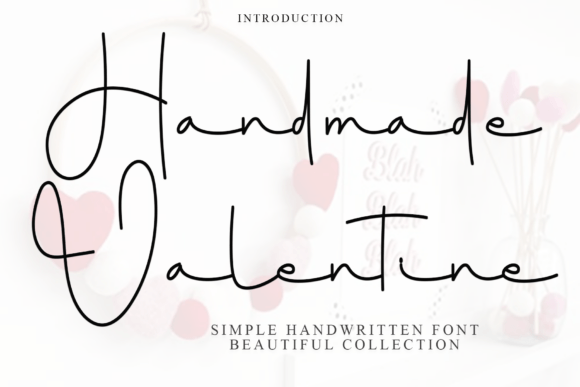
Introduction to Handmade Valentine Font
Handmade Valentine is a flowing handwritten font, described by an elegant touch, perfect for your favorite projects.
Key Features of Handmade Valentine Font